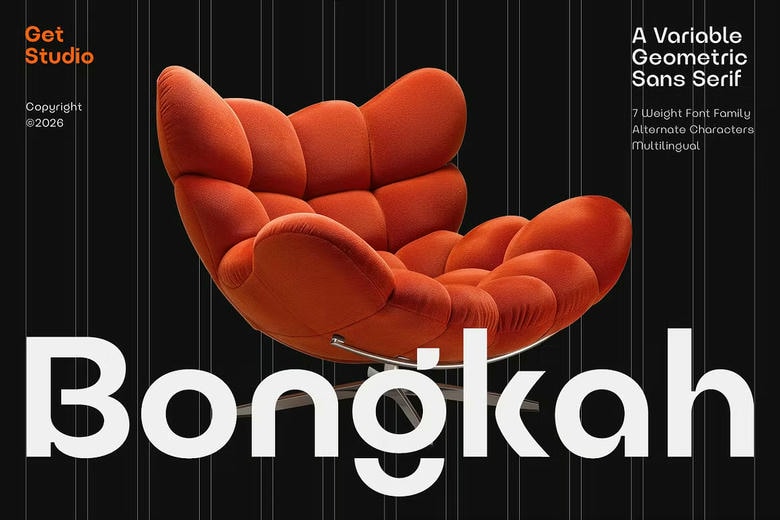
Bongkah Font
Bongkah is a sophisticated geometrical sans serif font that is well-articulated and quiet confident. It is constructed using strict shapes and in equal measures to provide a contemporary feel at the same time being easy to read.
Family consists of 7 elegantly designed styles, Thin to Bold, and full variable fonts support to make it smoothly flexible in digital and print environments. Characters and multilingualization make it more versatile and Bongkah is suited in branding, editorial designs, identity designs, and modern design work.
Bongkah Sans Serif Font Family